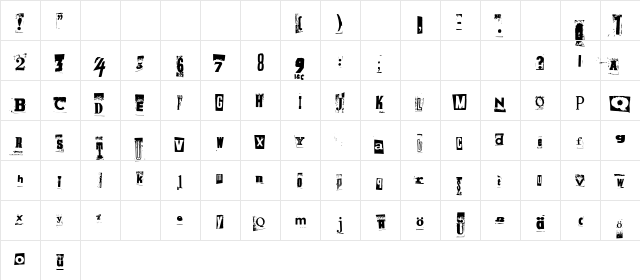
PiratesStoertebecker Regular
Design Context for PiratesStoertebecker Typeface
PiratesStoertebecker is a composed and adaptable typeface that performs quietly and consistently across a wide range of design contexts.